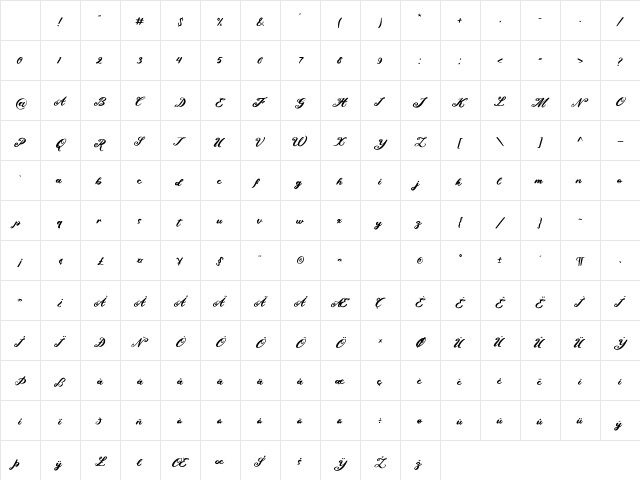
Complete Dreamy Sakura Regular glyph index. Displaying only characters natively supported by Dreamy Sakura Regular font.
Dreamy Sakura is a composed and adaptable typeface that performs quietly and consistently across a wide range of design contexts.